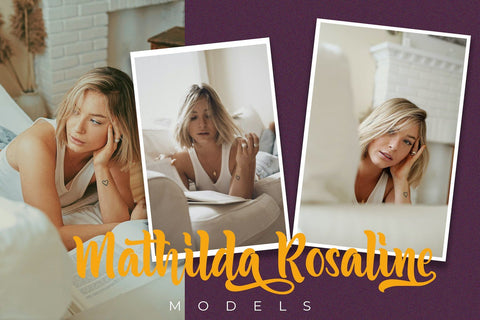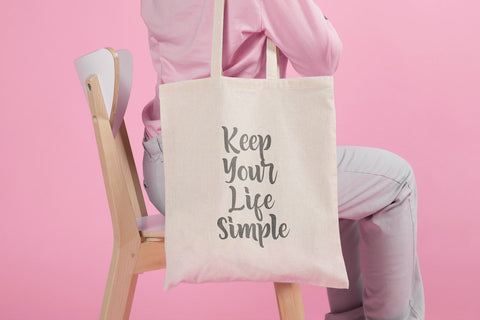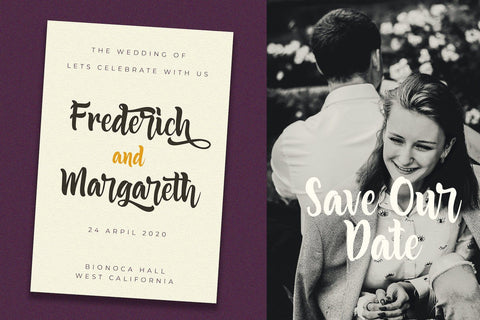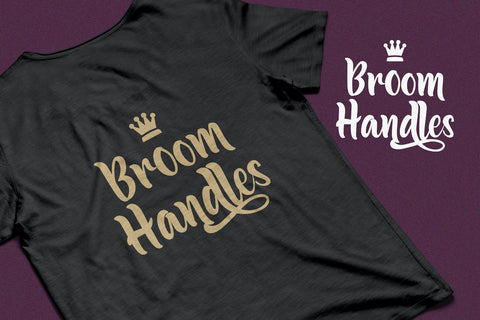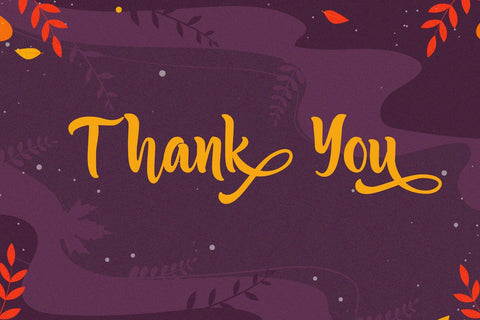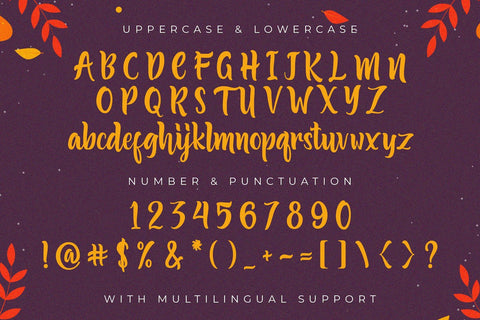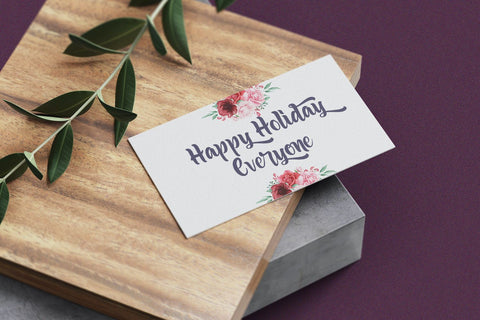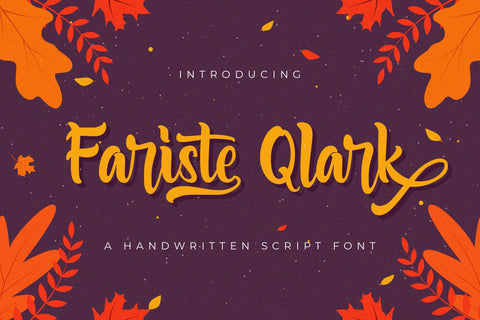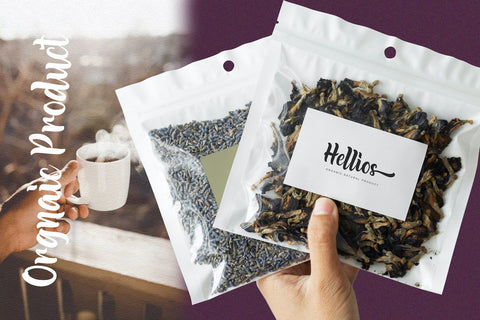
Fariste Qlark - Handwritten Font
Introducing Fariste Qlark - Handwritten Font
Fariste Qlark is a delicate, elegant and flowing handwritten font. It has beautiful and well balanced characters and as a result, it matches a wide pool of designs. Add it to your most creative ideas and notice how it makes them come alive!